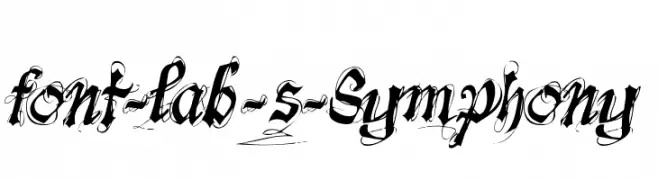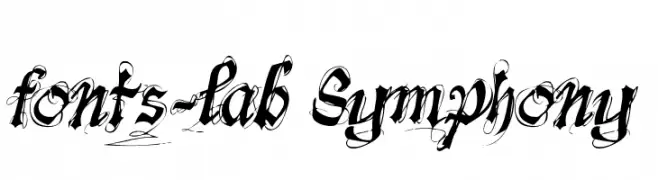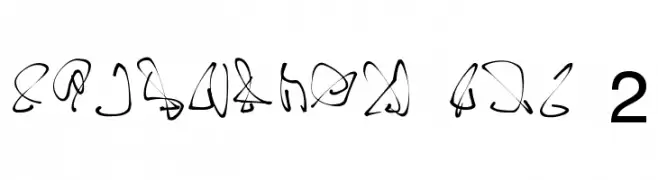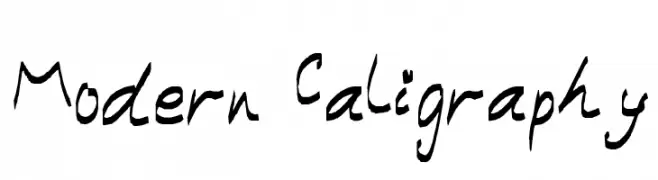
An ornate, decorative font with bold, calligraphic strokes and elaborate flourishes.
A decorative font with a whimsical and classic calligraphic style.
A bold, dynamic font inspired by traditional Asian calligraphy with sharp, angular strokes.
An artistic, calligraphic font with flowing, dynamic strokes.
A modern, calligraphic font with fluid strokes and artistic flair.
A dynamic, Japanese calligraphy-inspired font with bold, sweeping strokes.
An abstract, decorative font with swirling, interconnected lines and a calligraphic flair.